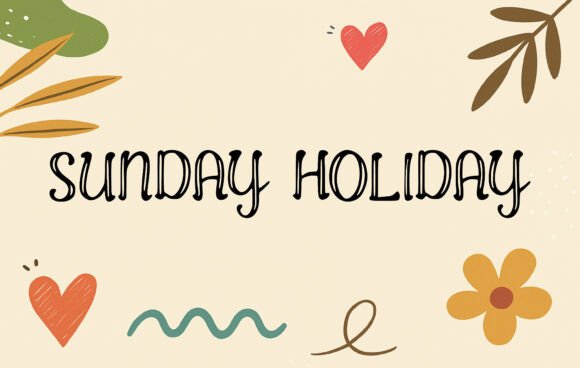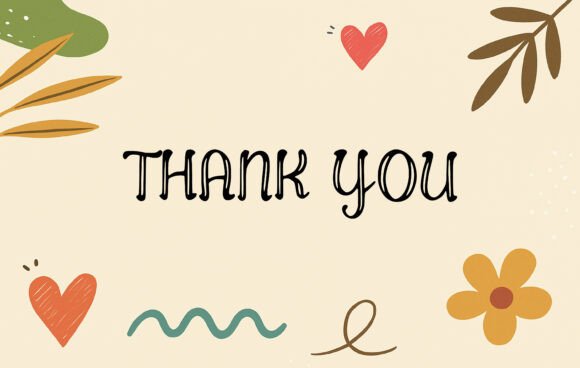
Introducing Defi Font: Elevate Your Creative Projects with Style and Legibility
In the world of design, fonts play a crucial role in bringing creative ideas to life. A well-crafted font can make all the difference in capturing the essence of a brand, product, or message. If you’re a designer, craft, or simply someone who loves to dabble in creative projects, you’re in luck. Defi Font is here to revolutionize your designs with its unique blend of style, legibility, and versatility.
A Font Designed for Creative Greatness
Defi Font is crafted with one goal in mind: to be a true favorite among designers and crafters. Its creators have poured their hearts and souls into designing a font that not only looks great but also performs exceptionally well in various applications. Whether you’re working on magazine headlines, t-shirts, social media graphics, branding materials, wedding invitations, or cards, Defi Font is the perfect companion to help you take your creative ideas to the highest level.
Legibility and Versatility: The Hallmarks of Defi Font
One of the standout features of Defi Font is its exceptional legibility. This font is designed to be easy on the eyes, making it perfect for both title and body text. Its clean lines, balanced proportions, and carefully considered letterforms ensure that your message is conveyed clearly and effectively, regardless of the medium or application.
But what truly sets Defi Font apart is its versatility. This font is not limited to a specific style or industry; it’s a jack-of-all-trades that can adapt to any design requirement. Need a bold, eye-catching headline for a magazine cover? Defi Font has got you covered. Looking for a elegant, sophisticated font for a wedding invitation? Defi Font is up to the task. Want to create a fun, playful design for a t-shirt or social media post? Defi Font can handle it with ease.
Endless Design Possibilities with Defi Font
The possibilities are endless with Defi Font. Here are just a few ideas to get you started:
- Magazine headlines: Use Defi Font to create bold, attention-grabbing headlines that draw readers in.
- T-shirts and apparel: Defi Font is perfect for designing custom t-shirts, hoodies, and other apparel.
- Social media graphics: Elevate your social media presence with Defi Font’s clean, modern aesthetic.
- Branding and logos: Use Defi Font to create a cohesive brand identity that stands out from the crowd.
- Wedding invitations and cards: Add a touch of elegance and sophistication to your wedding stationery with Defi Font.
Why Choose Defi Font?
So why should you choose Defi Font over other fonts on the market? Here are just a few compelling reasons:
- Unique style: Defi Font boasts a distinctive style that sets it apart from more generic fonts.
- Exceptional legibility: Defi Font is designed to be easy to read, making it perfect for body text and long-form content.
- Versatility: Defi Font can be used in a wide range of applications, from print to digital.
- High-quality design: Defi Font is crafted with attention to detail and a deep understanding of typographic principles.
In conclusion, Defi Font is a game-changer for designers, crafters, and anyone looking to elevate their creative projects. With its unique blend of style, legibility, and versatility, Defi Font is the perfect addition to any design toolkit. Whether you’re working on a commercial project or a personal passion project, Defi Font has the potential to take your creative ideas to the highest level. So why wait? Give Defi Font a try today and discover a world of limitless design possibilities!